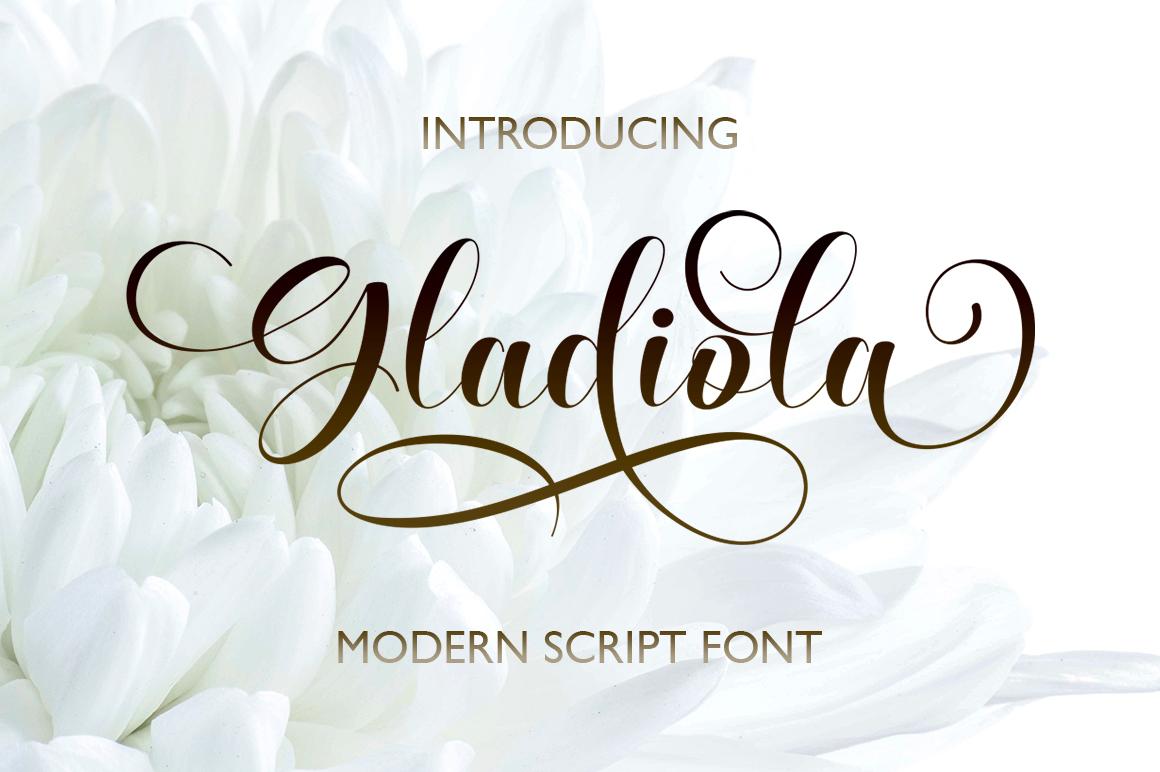
Gladiola Font Description
Gladiola feels incredibly elegant and flowing. It looks stunning on wedding invitations, thank you cards, quotes, greeting cards, logos, business cards and every other design which needs a handwritten touch. It features a varying baseline, smooth lines, gorgeous glyphs and stunning alternates.